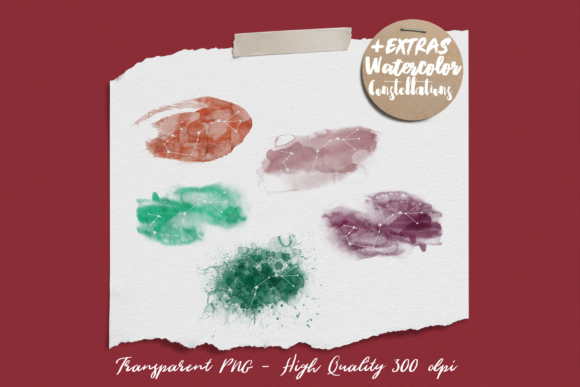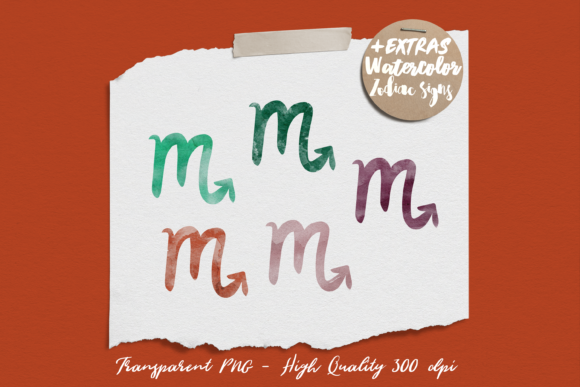
Bravery Scorpio Duo Font
db-ku.com - Script & Handwritten -- Bravery Scorpio Duo consists of two fonts (display and script) designed to complement each other perfectly. Together or apart, these fonts are ideal for adding a chic and cheery touch to your crafts. This font is PUA encoded which means you can access all of the glyphs and swashes with ease!